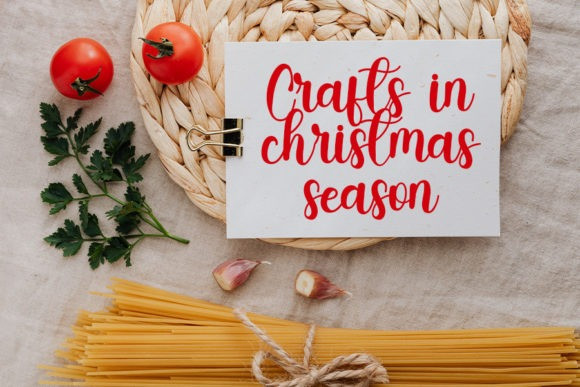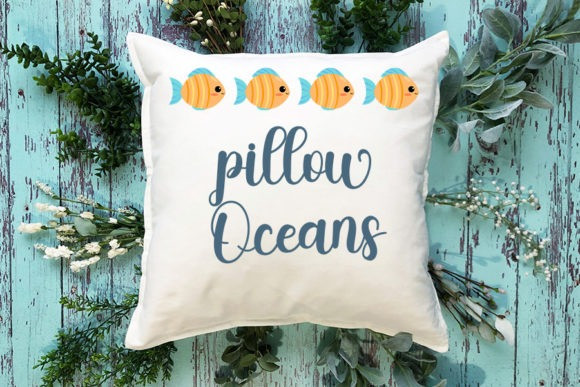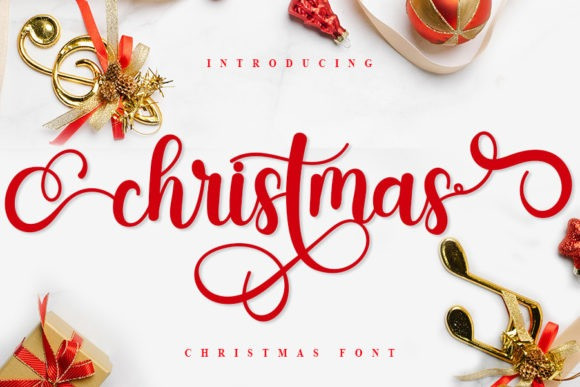
Christmas FT Font
Christmas FT Font is an enchanting script font. This delicate font has a wide spectrum of applications ranging from greeting cards to headlines and logos. Christmas is PUA encoded which means you can access all glyphs and swashes with ease!